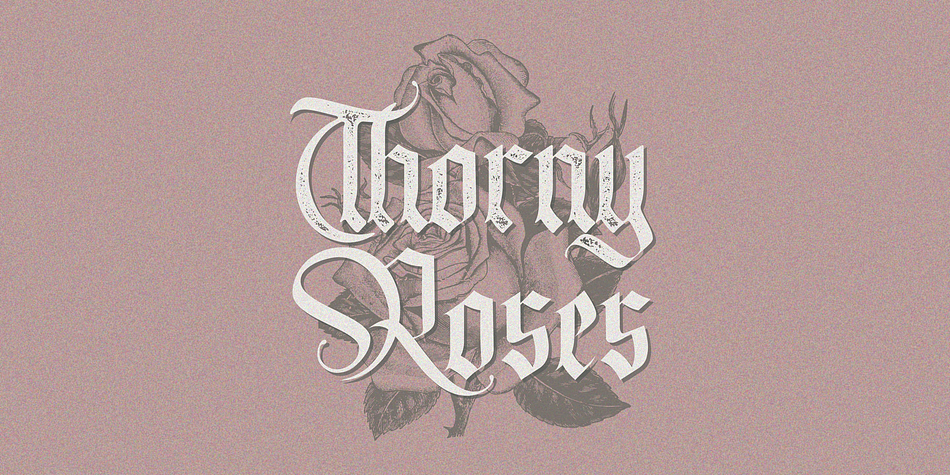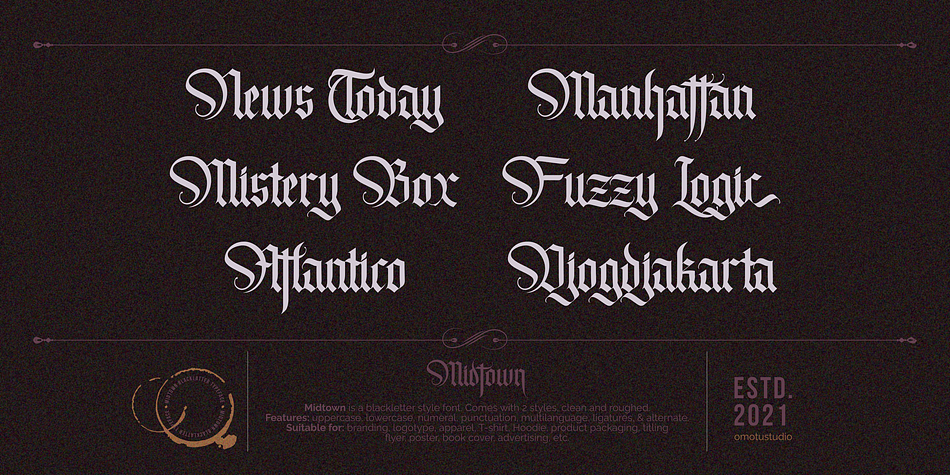
Midtown
Midtown is a blackletter font family. This typeface has two styles and was published by Omotu Studio.
Midtown! A blackletter font with 2 styles, regular and roughed. Midtown font is perfect for logos, apparel, T-shirt, Hoodie, product packaging, or anything else.
- OpenType support
- Multilingual support
- PUA encoded
- Features: uppercase, lowercase, numeral, punctuation, multilanguage, alternates, stylist set.